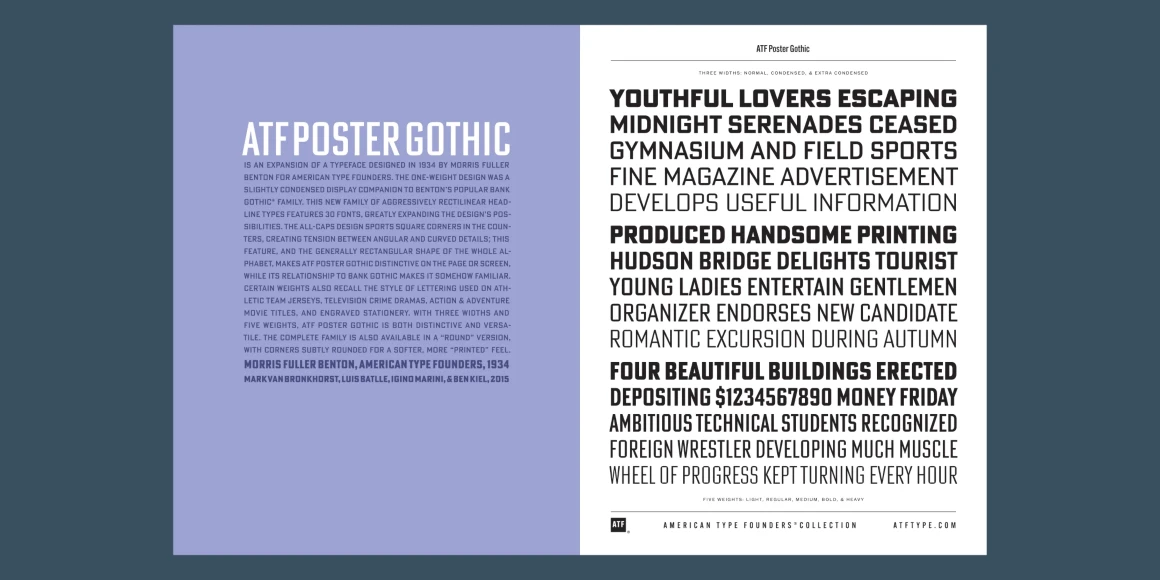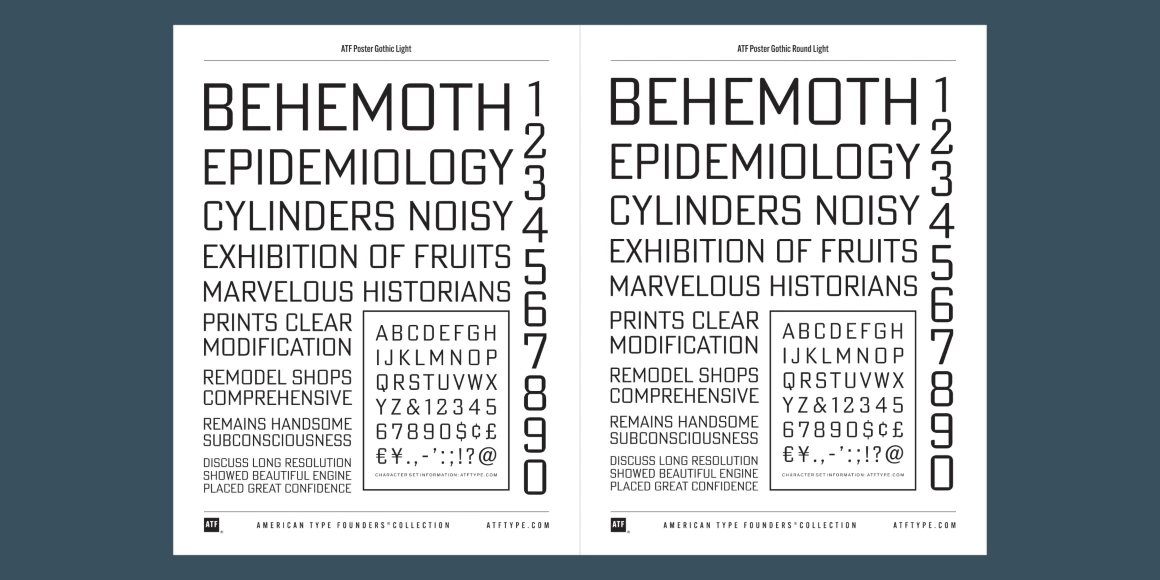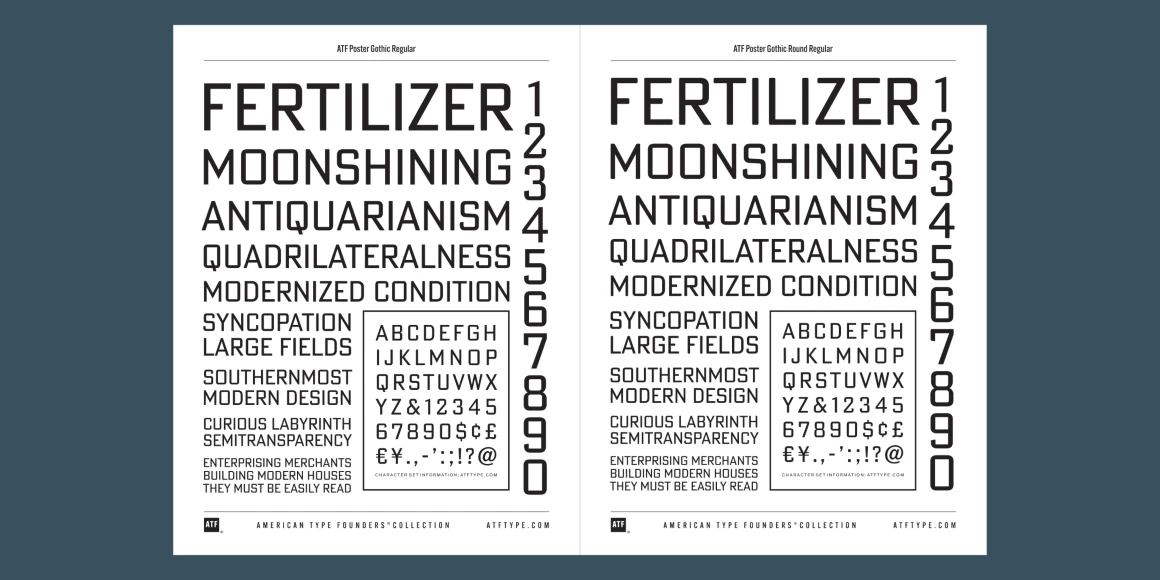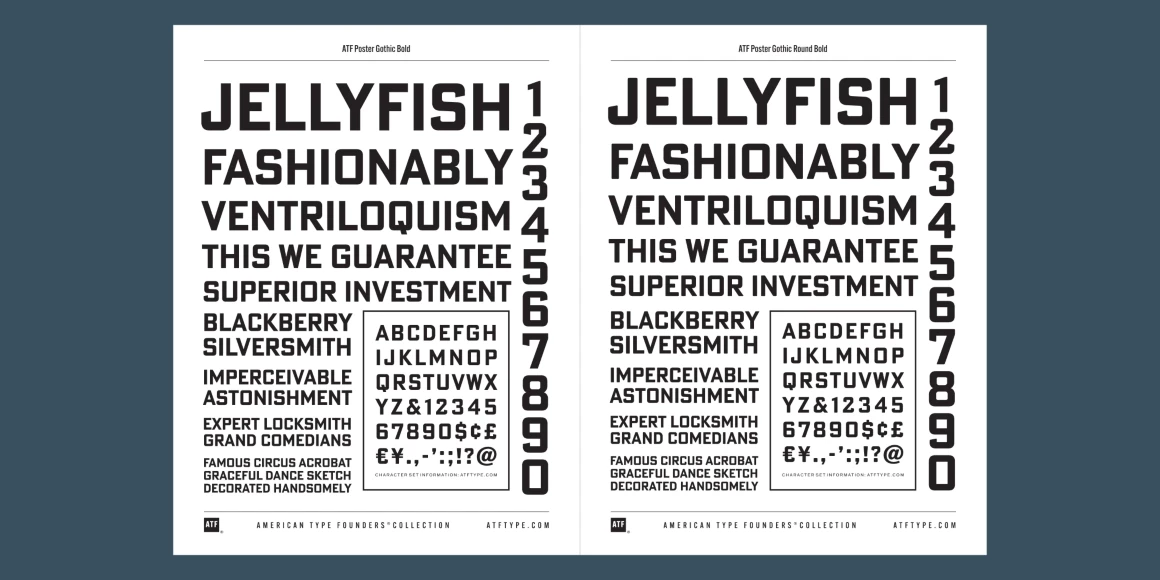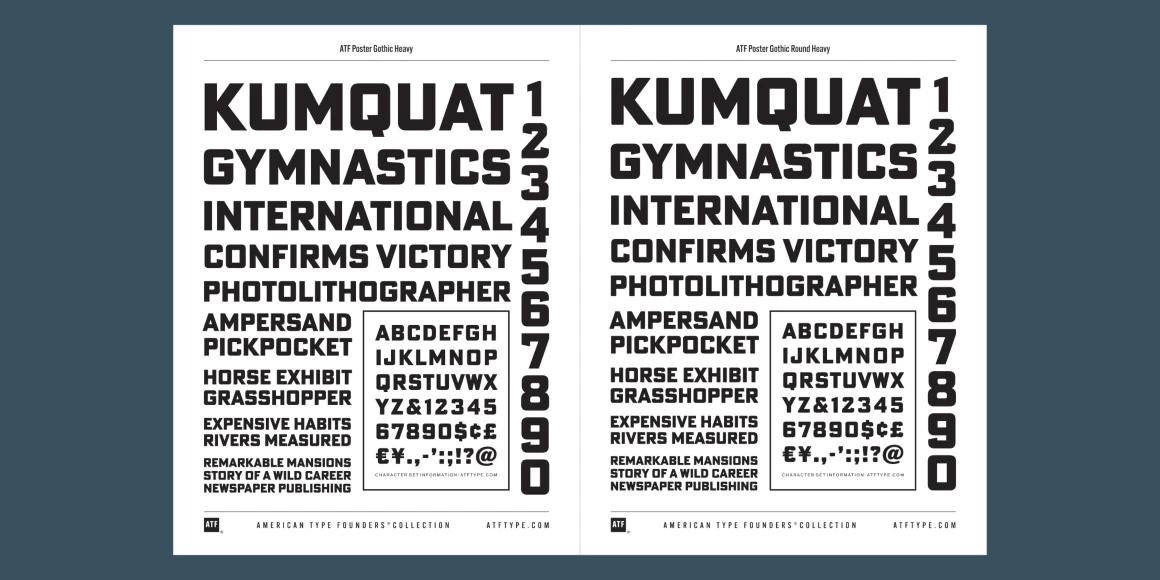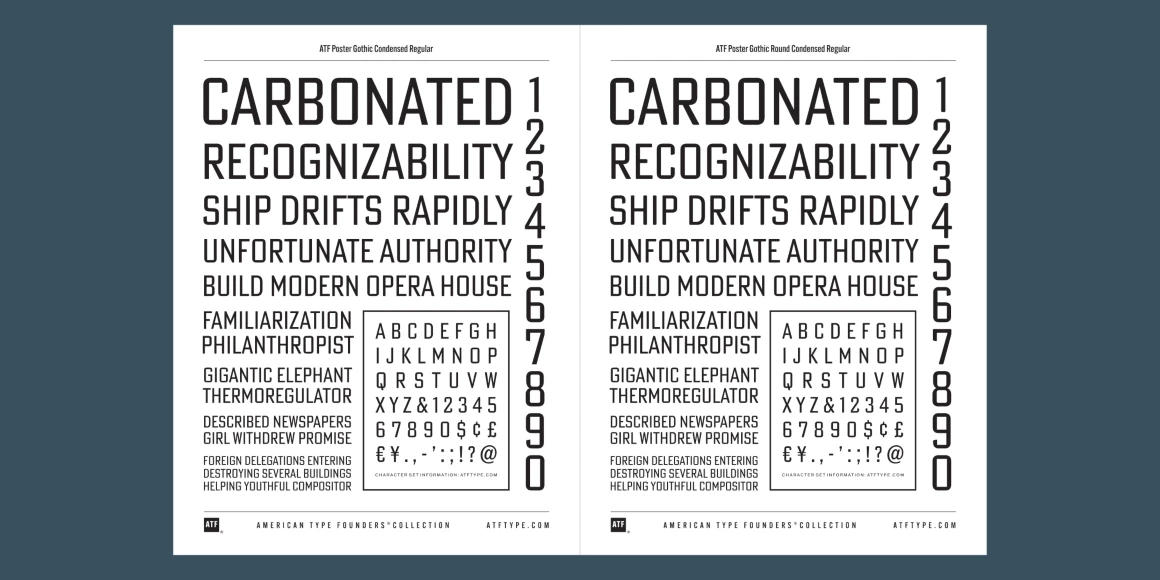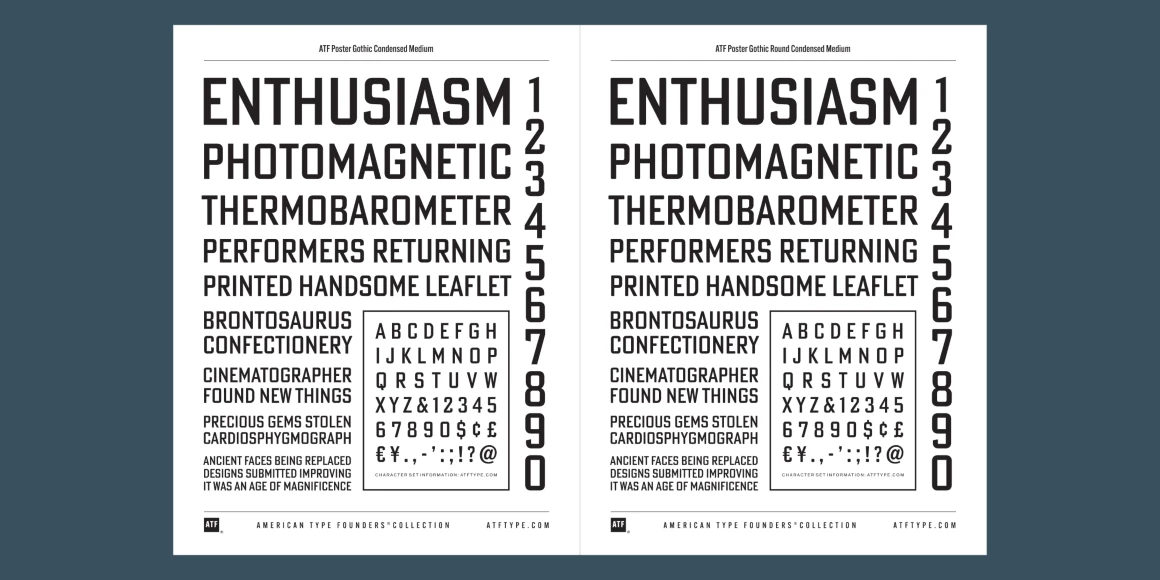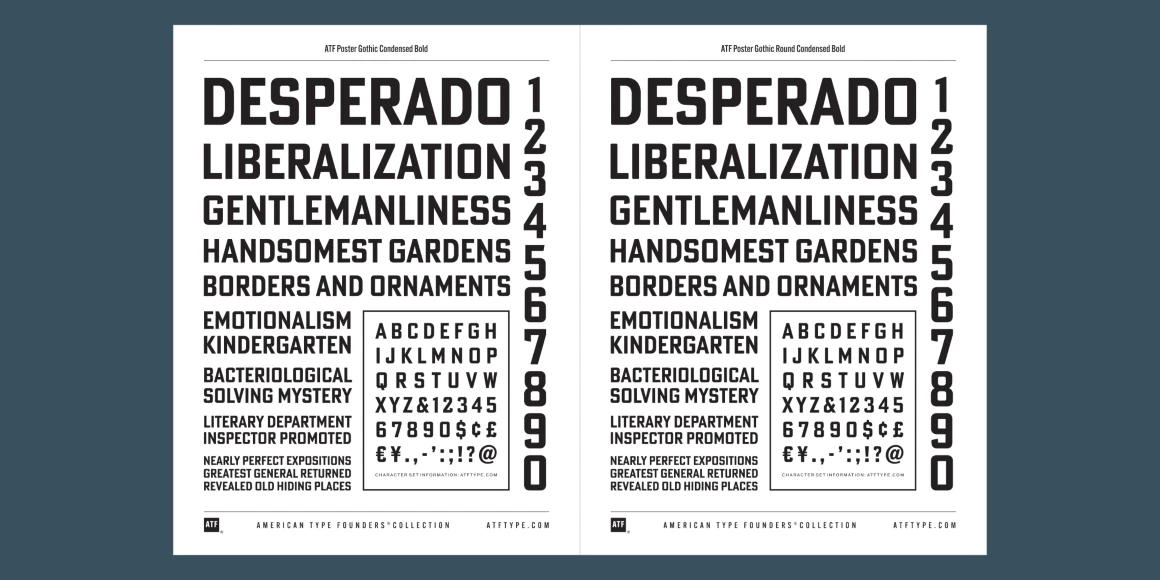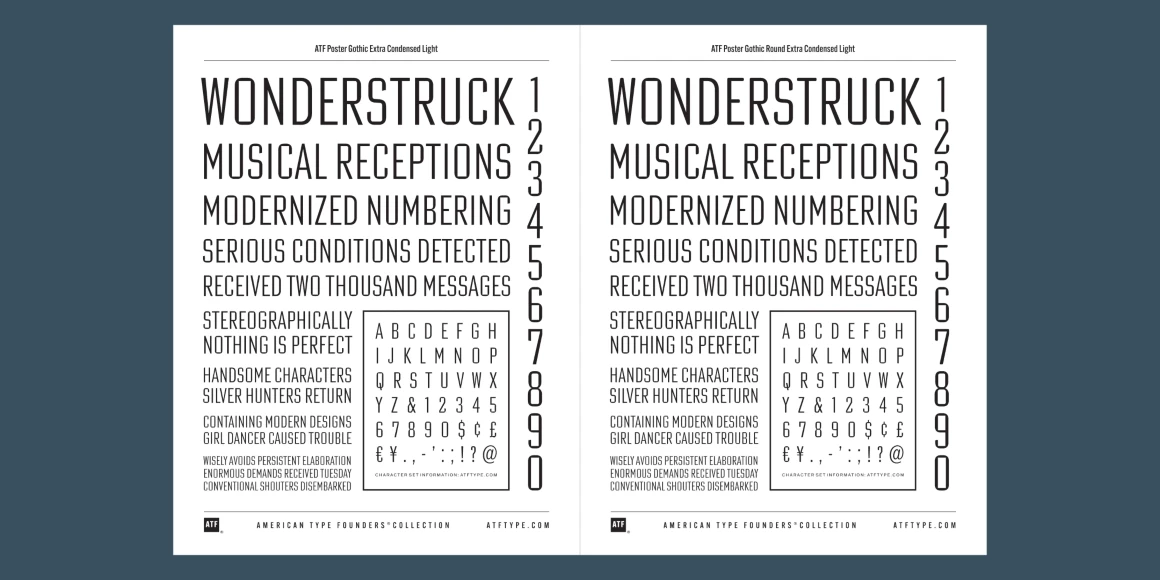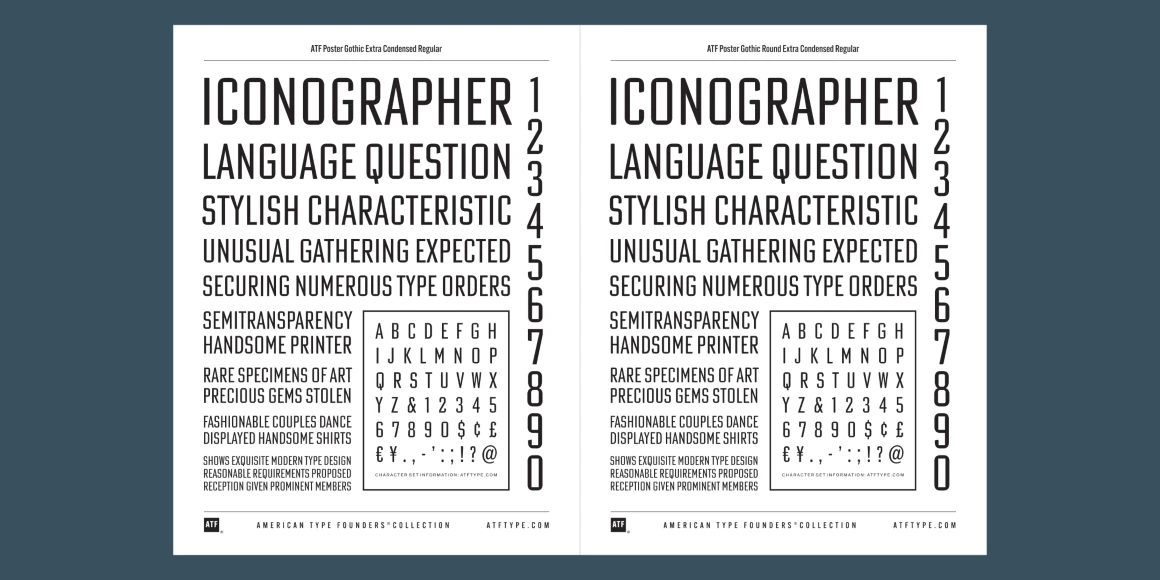
Poster Gothic
By Morris Fuller Benton, Mark Van Bronkhorst, Luis Batlle, Igino Marini & Ben Kiel
ATF Poster Gothic is an expansion of a typeface designed in 1934 by Morris Fuller Benton for American Type Founders. The one-weight design was a slightly condensed display companion to Benton’s popular Bank Gothic® family. This new family of aggressively rectilinear headline types features 30 fonts, greatly expanding the design’s possibilities. The all-caps design sports square corners in the counters, creating tension between angular and curved details; this feature, and the generally rectangular shape of the whole alphabet, makes ATF Poster Gothic distinctive on the page or screen, while its relationship to Bank Gothic makes it somehow familiar.
Certain weights also recall the style of lettering used on athletic team jerseys, television crime dramas, action & adventure movie titles, and engraved stationery. With three widths and five weights, ATF Poster Gothic is both distinctive and versatile. The complete family is also available in a “Round” version, with corners subtly rounded for a softer, more “printed” feel.